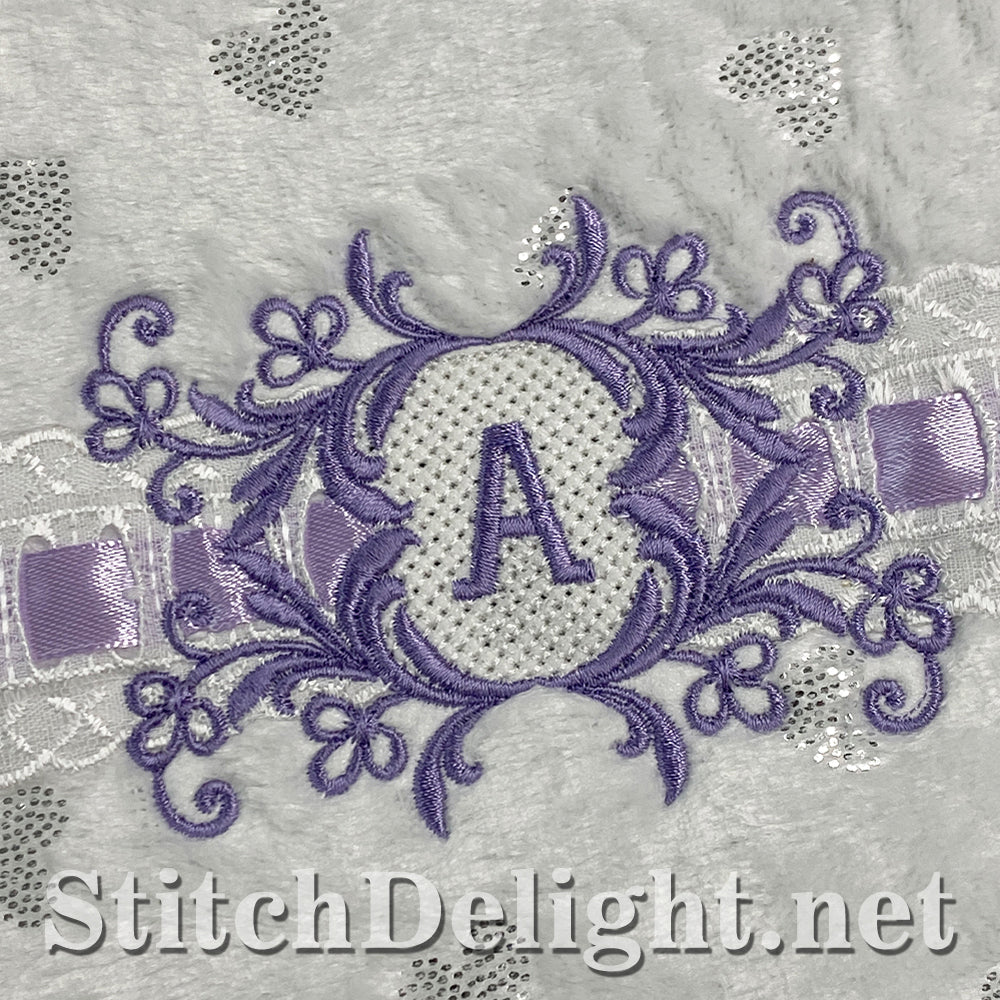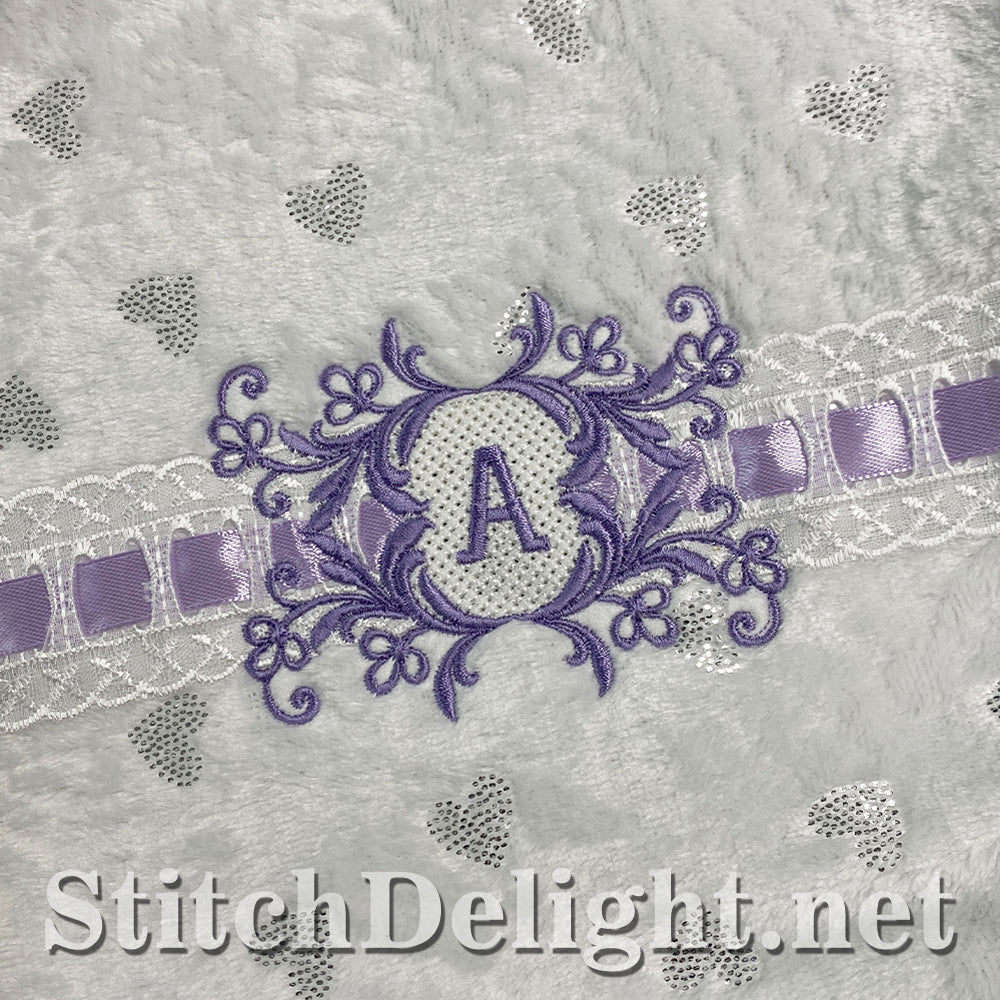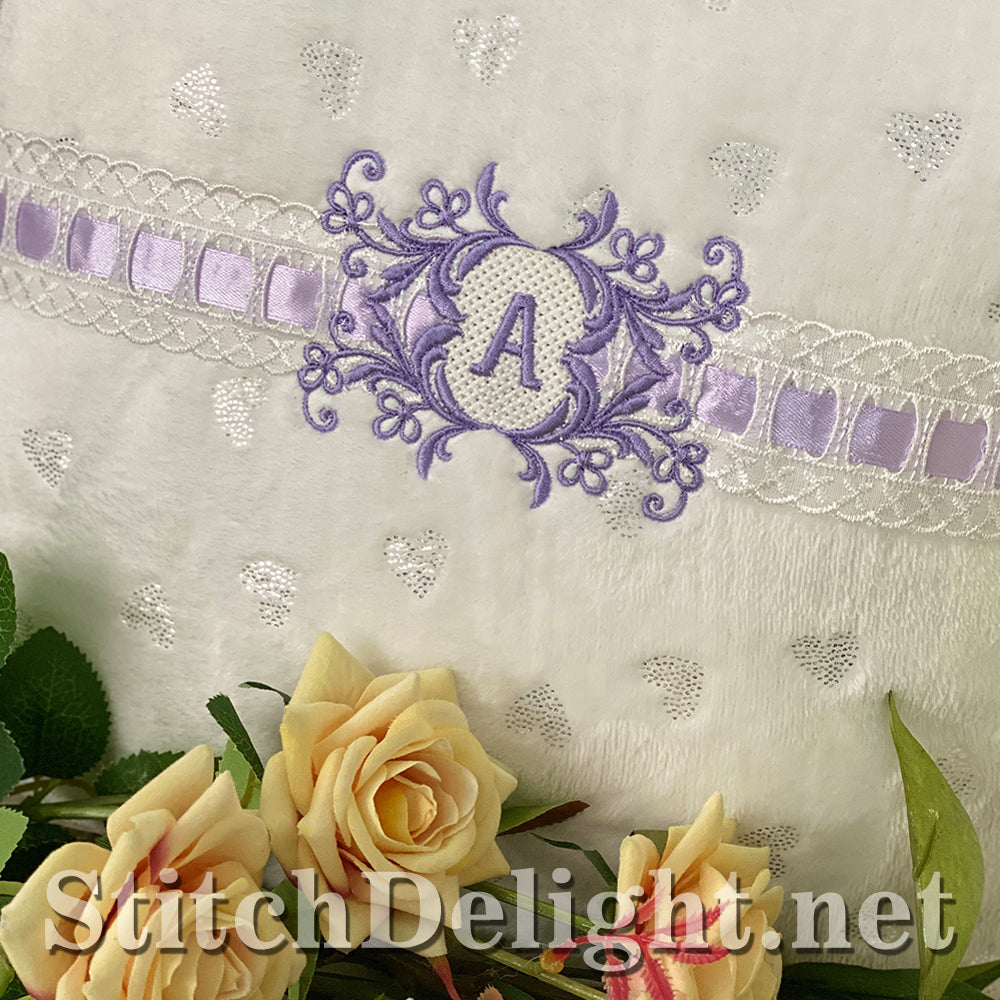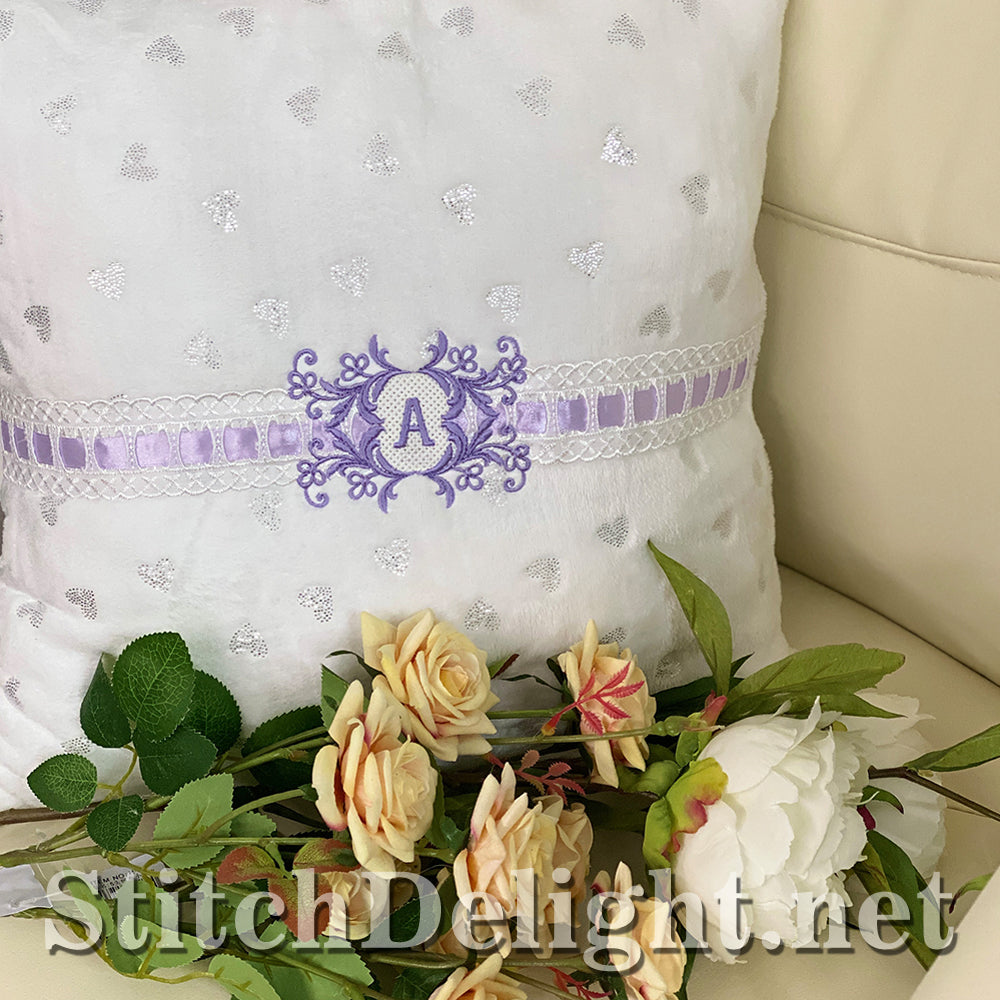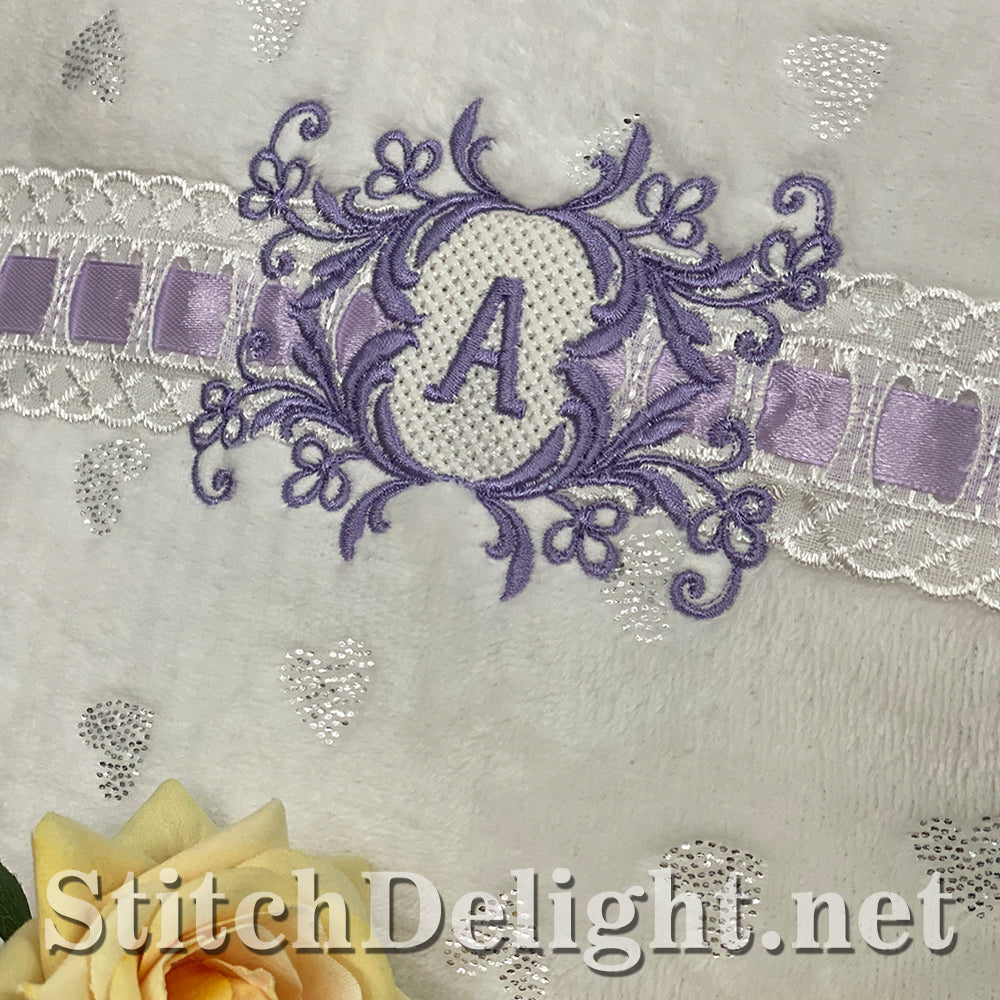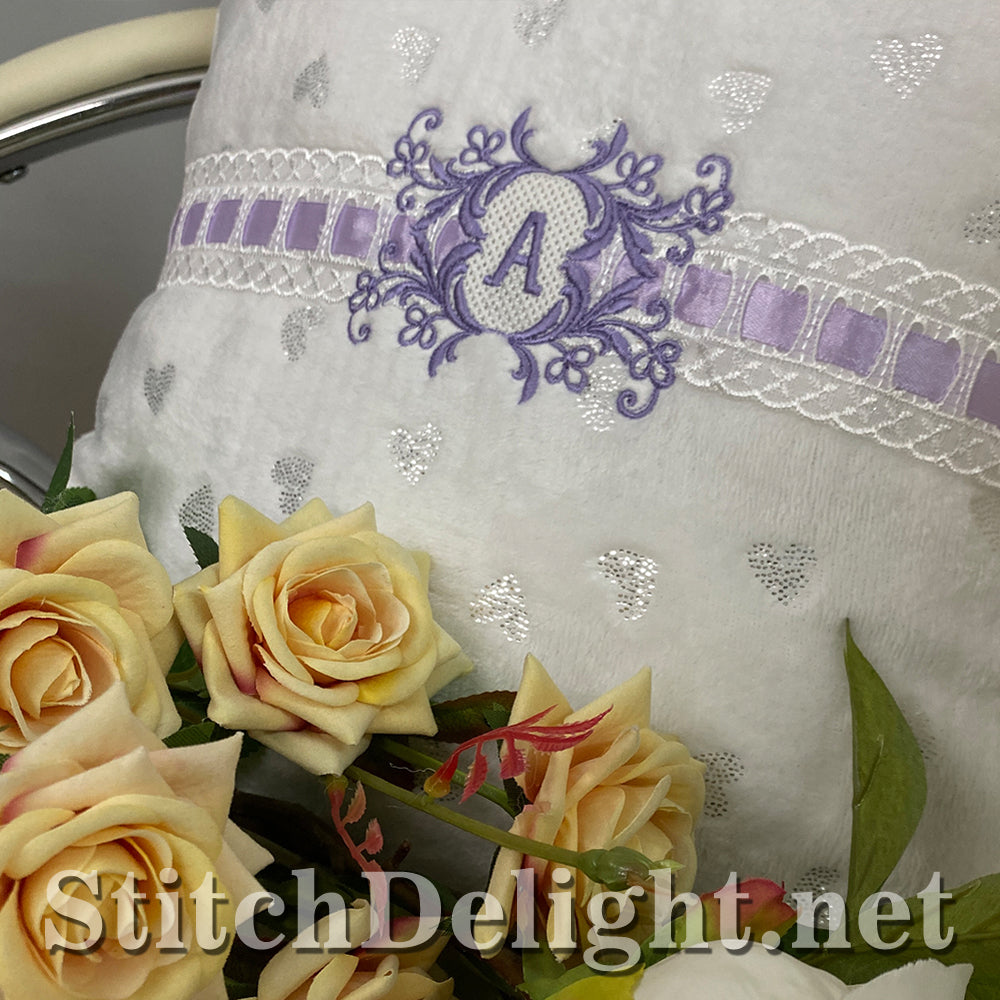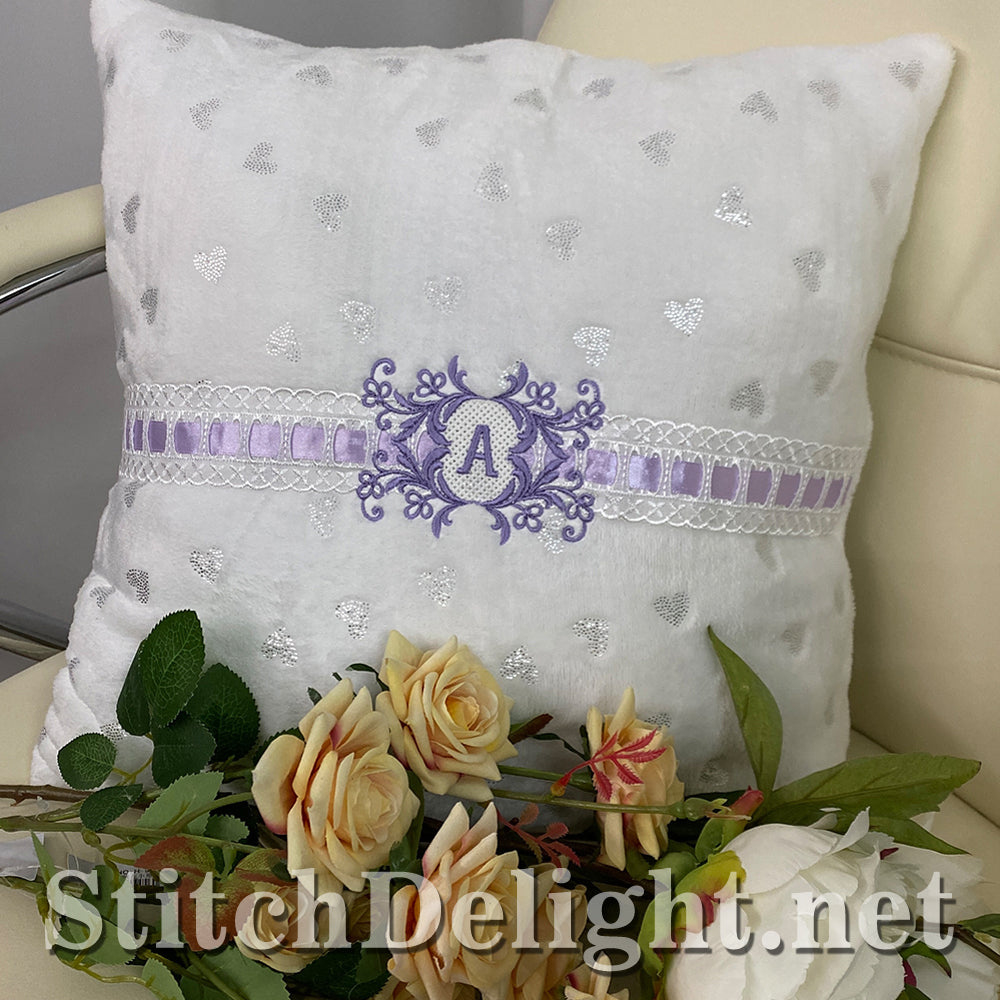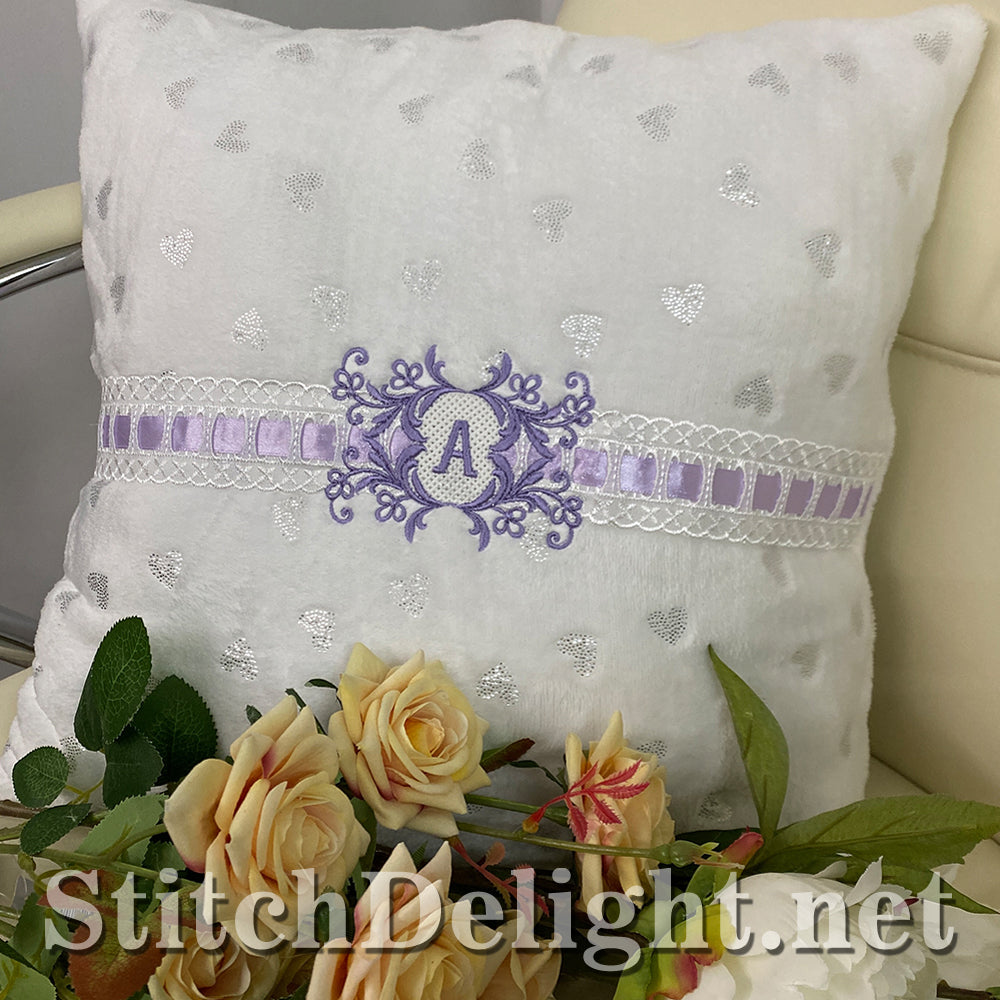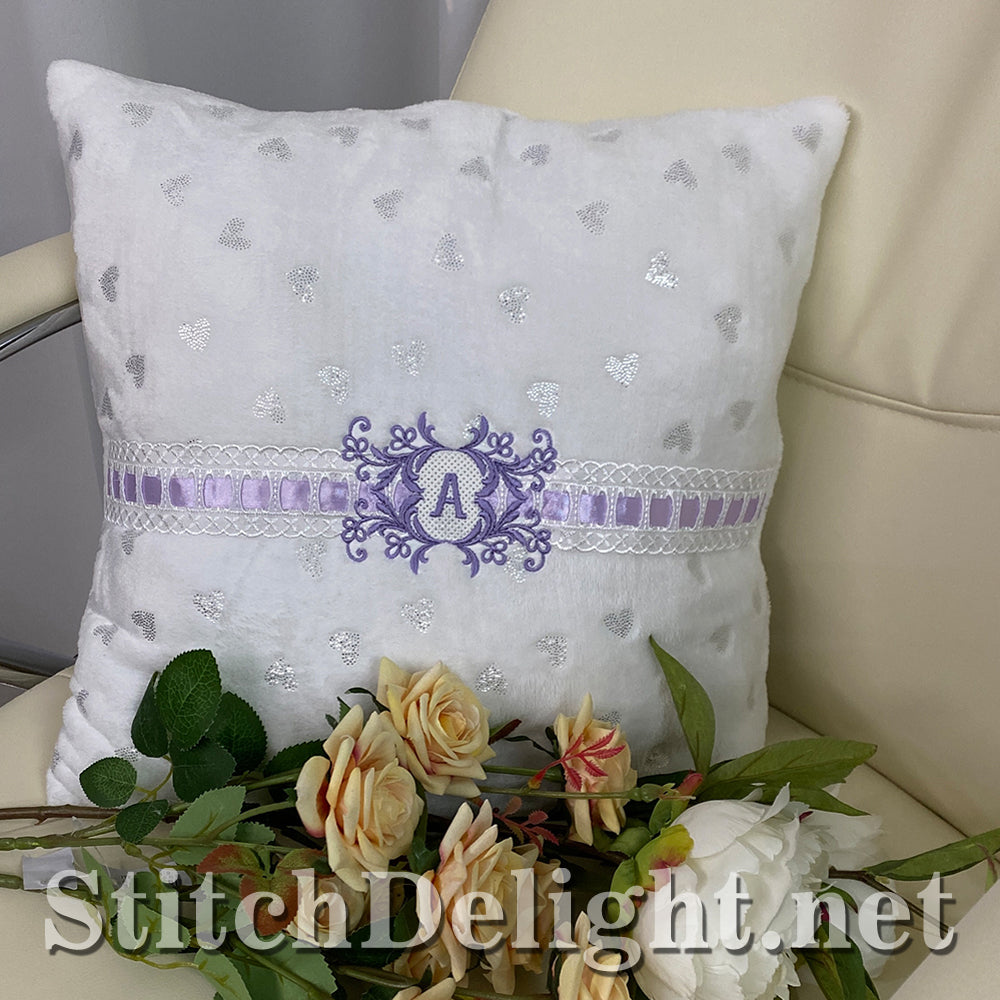
SDS5463 Lace Collectors Font
This elegant lace font is made for the 4x4" hoop, what makes this one unique is that this design incorporates continuous lace as stops have been added to make this possible. Width of lace needed is up to size 32mm / 1.25inch